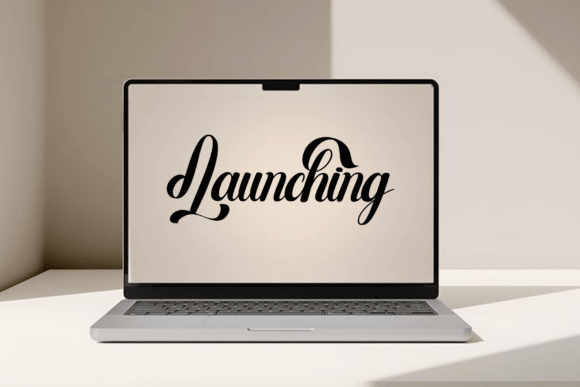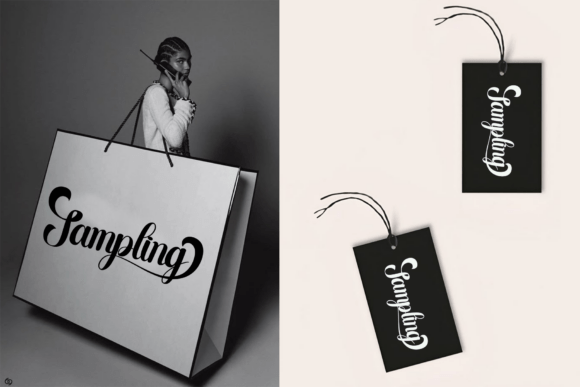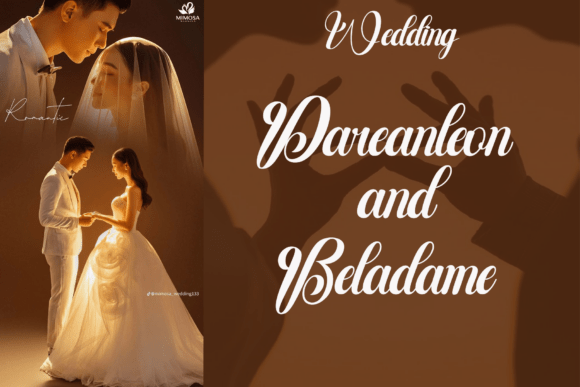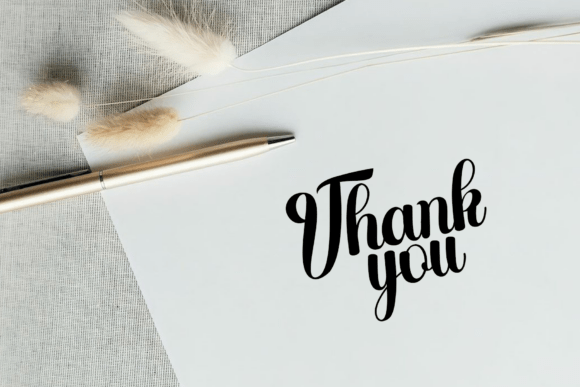
The Perfect Design Companion: Baby Sophia Font
There’s nothing quite like the thrill of brainstorming a new design concept, surrounded by scribbled notes, scattered ideas, and a dash of creativity. It’s in these moments that the perfect font can make all the difference – and that’s exactly where Baby Sophia Font comes in. This elegant script font is designed to add a touch of sophistication and whimsy to any project, from branding and titles to wedding designs and invitations.
Whether you’re a seasoned designer or just starting out, the Baby Sophia Font is a valuable addition to your toolkit. Its soft, flowing strokes and feminine charm make it the perfect choice for projects that require a delicate yet impactful touch. With its versatility and timeless appeal, this font is sure to elevate your designs and leave a lasting impression.
Baby Sophia Font Key Features
- Font Family: Baby Sophia
- Font Size: 6,000+ glyphs, 300+ languages supported
- Unique Characteristics: Hand-drawn design, elegant and playful feel, perfect for baby-related designs, children’s books, and nursery decor
- Font Weight: 6 weights available (Hairline, Light, Regular, Medium, Bold, Black)
- Resolution: High-resolution fonts, suitable for both screen and print use
Designer Review: Baby Sophia Font
Overall, I think Baby Sophia Font is a cute and charming addition to any design project. ✨ Its playful and whimsical feel makes it perfect for children’s books, nursery decor, or any other design that requires a youthful touch.
- Unique and recognizable character set
- Well-suited for display and headline purposes
- Supports a wide range of languages
- Extremely versatile and can be used for various design projects
One of the standout features of Baby Sophia Font is its ability to convey a sense of innocence and purity. ✨ It’s a great choice for designers who want to create a sense of wonder and magic in their work.
- Lacks a strong, bold weight, which may limit its use for headings or titles
- Not ideal for body text or large blocks of text due to its relatively small x-height
- May require additional styling or customization to achieve the desired look
Despite its limitations, Baby Sophia Font is a great choice for designers who want to add a touch of whimsy and charm to their projects. With a little creativity and experimentation, it can be used to create truly unique and eye-catching designs.
Tips for Getting the Most Out of Baby Sophia Font
Use Baby Sophia Font for creative and playful projects, such as children’s book covers, party invitations, and nursery decor.
Experiment with different font sizes and styles to create visual interest and emphasis.
Pair Baby Sophia Font with other playful and whimsical fonts for a unique and eye-catching design.
Baby Sophia Font is perfect for:
Children’s book covers and illustrations
Party invitations and decorations
Nursery decor and wall art
Playful marketing materials and social media graphics
Q: What is the recommended font size for Baby Sophia?
The recommended font size for Baby Sophia is between 12-24 points, depending on the design context. However, feel free to experiment with different font sizes to achieve the desired visual effect.